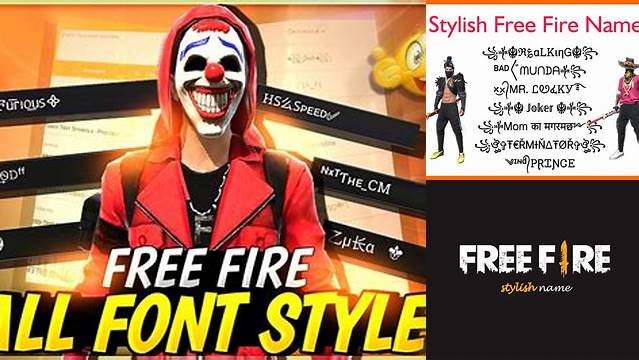
Stylish Free Fire Nickname Font Design: A Guide To Awesome Names
Hey guys, are you ready to level up your Free Fire game? One of the coolest ways to stand out is by having a unique and stylish nickname. Forget the boring default names – it's time to jazz things up! This article will dive deep into Free Fire nickname font design, exploring how to create awesome names using various fonts, symbols, and tools. Get ready to learn how to craft a nickname that'll make your opponents say, "Whoa, that's a cool name!"
The Power of a Killer Free Fire Nickname
Why bother with a fancy nickname, you ask? Well, your Free Fire nickname is more than just a label; it's your identity in the game. It's what other players see, remember, and sometimes even fear! A well-designed nickname can do wonders. First off, it makes you memorable. Think about it – would you remember "Player123" or "ᗪƦΛGØŇ_SŁΛƳƇƦ"? Probably the latter, right? A unique name helps you stand out from the crowd, making it easier for people to recognize you and maybe even team up with you again. Then, there's the intimidation factor. A cool, intimidating name can psyche out your opponents before the match even begins. It's a psychological edge that can give you a small advantage. Plus, it just looks cool! A well-designed nickname shows that you're serious about the game and that you pay attention to detail. It's a form of self-expression. It lets you show off your personality, your interests, and your creativity. It's all about making your mark and leaving a lasting impression in the Free Fire universe. So, are you still wondering if it's worth the effort? Trust me, it is. Let's get you started on the path to a legendary nickname!
Choosing the Right Font
One of the first things you'll want to think about is the font. The right font can make or break your nickname. It's like picking out the perfect outfit for your character – it has to be stylish and functional. There are tons of font styles out there, from sleek and modern to bold and gothic. The key is to find one that fits your personality and the image you want to portray. Consider the readability of the font. Some fonts look amazing but are hard to read in the game. You want a font that is both stylish and easily understood by others, especially during the heat of battle. Imagine trying to spot your teammate's name during a fast-paced match, and you can't even read it! It's a recipe for disaster. There are several websites and apps that offer a wide variety of fonts specifically designed for gaming nicknames. These tools allow you to type in your desired name and then convert it into different font styles instantly. Some sites even offer advanced customization options, letting you add symbols, special characters, and other embellishments to your name. Experiment with different fonts to see what looks best and feels right. Don't be afraid to try out several options before you find the perfect one. Think about the overall vibe you want to create. Are you going for a tough, edgy look? A playful, fun style? Or something else entirely? The font you choose should align with your desired image. Remember, your nickname is a reflection of you, so let your personality shine through. So, start exploring those fonts and finding the perfect match for your Free Fire persona. You're one step closer to having the ultimate nickname!
Using Symbols and Special Characters
Alright, let's talk about adding some symbols and special characters to your nickname. This is where things get really interesting, guys! Symbols and special characters are the secret sauce that takes your nickname from "meh" to "WOW!" They add flair, personality, and that extra touch of uniqueness that makes your name stand out. There's a vast library of symbols out there, from hearts and stars to arrows, brackets, and everything in between. The trick is to use them creatively to enhance your name without making it unreadable or cluttered. You can use symbols to separate words, add emphasis, or create cool visual effects. For example, you might use arrows or brackets to highlight certain parts of your name, or you could use a symbol before and after your name to create a unique frame. Many of the font generators available online also offer a selection of symbols and special characters that you can add to your nickname. These tools make it super easy to experiment with different combinations and find the perfect balance of style and readability. It's also a good idea to check which symbols are supported by Free Fire. Some symbols might not display correctly in the game, so you'll want to make sure the ones you choose are compatible. You can often find lists of supported symbols online or by testing them out yourself in the game. Here's a pro tip: don't go overboard! Too many symbols can make your name look messy and difficult to read. The goal is to enhance your name, not to overwhelm it. Use symbols sparingly and strategically to create a polished and eye-catching look. Consider the overall design of your name and how the symbols complement the font and the rest of your nickname. Think about what the symbols represent and how they add to the meaning or personality of your name. With a little creativity and experimentation, you can use symbols and special characters to create a truly unforgettable nickname that will set you apart from the competition. Get ready to make your mark with a nickname that screams style!
Font Generators and Tools
Okay, so you know you want a cool nickname, but where do you start? That's where font generators and tools come in! These are your best friends when it comes to designing unique and stylish names for Free Fire. Font generators are websites or apps that allow you to type in your desired name and instantly convert it into various font styles. They're incredibly easy to use and offer a wide range of options, from basic fonts to more elaborate and decorative styles. All you need to do is enter your name, and the generator will display it in different fonts, along with symbols and special characters. This makes it easy to preview your name in different styles and see what works best. There are tons of different font generators available online, and they all offer slightly different features. Some generators allow you to customize your fonts even further, by adding symbols, changing the size, and adjusting other elements. You can often find these generators with a quick search online. Just type in "Free Fire nickname generator" or similar keywords, and you'll find a ton of options to choose from. Experiment with different generators to see which ones you like best. Not all generators are created equal, and some might offer better fonts or customization options than others. Once you've found a generator that you like, the next step is to start experimenting with different fonts and styles. Try typing in your name and seeing how it looks in different fonts. You can also try combining different fonts and symbols to create a unique look. Keep in mind that not all fonts are supported by Free Fire, so you might need to try different combinations until you find one that works. Here's a pro tip: check the preview of your nickname in the generator to make sure it looks good and is easy to read. Some fonts might look great in the generator but be difficult to read in the game. Don't be afraid to try different combinations until you find one that you love. You can also save the nicknames you like and come back to them later. That way, you can see how they fit with different characters and create a list of potential nicknames. And hey, don't forget to share your cool nickname with your friends and ask for their opinions. That way, you can see how it fits with different characters and create a list of potential nicknames. It is time to create your cool nickname with these awesome font generators and tools!
Tips for a Great Free Fire Nickname
So, you've got the tools, you know about fonts and symbols, and now you're ready to create a great Free Fire nickname? Awesome! Let's go over some tips to help you craft a name that'll make everyone take notice. First, think about what you want your nickname to say about you. Are you a serious gamer, a fun-loving player, or something in between? Your nickname should reflect your personality and playing style. This will help you choose the right fonts, symbols, and overall design. Make it unique. Avoid generic names or ones that are already widely used. Try to come up with a name that's original and memorable. This will make it easier for other players to remember you and recognize you in the game. Keep it concise. Long names can be difficult to read and might get cut off in the game. Aim for a name that is easy to read and understand, even when viewed on a small screen. Make it readable. Even if you love a fancy font, make sure your nickname is easy to read in the game. Choose fonts and symbols that are clear and distinct, so other players can quickly identify you. Avoid using names that are offensive, inappropriate, or that violate Free Fire's terms of service. You want to create a positive and respectful online experience for yourself and other players. Make sure your nickname is available. Before you finalize your nickname, check to see if it is available in Free Fire. You don't want to spend a lot of time creating a perfect name, only to find out someone else is already using it. And most importantly, have fun and be creative! This is your chance to express yourself and create a unique identity in the game. Don't be afraid to experiment and try different ideas until you find the perfect nickname for you. By following these tips, you'll be well on your way to creating a great Free Fire nickname that will turn heads and make you stand out from the crowd. Go forth and create an awesome nickname!
Avoiding Common Mistakes
Creating a Free Fire nickname is a blast, but there are also some common mistakes that you want to avoid. Trust me, you don't want to end up regretting your choice later on. One of the biggest mistakes is choosing a name that's too long or hard to read. Remember, players will see your name in the heat of battle, and they need to be able to identify you quickly. If your name is too complex or uses too many symbols, it might be difficult for others to read, and it could even cause confusion. Another mistake is choosing a name that's generic or unoriginal. While it's tempting to go with a simple name, like "ProGamer" or "SniperKing," these names often get lost in the crowd. You want a name that's unique and memorable, something that will make other players notice you. Another common mistake is choosing a name that's offensive or inappropriate. Free Fire, like any online game, has rules and guidelines about what's acceptable and what's not. Avoid using names that are racist, sexist, or that promote violence or hatred. You don't want to get banned or have your account penalized because of your nickname. Also, watch out for names that are too complicated or difficult to type. If your name uses a lot of special characters or unusual fonts, it might be difficult for others to type your name correctly. This can make it hard for people to search for you or add you as a friend. Finally, don't be afraid to change your nickname if you're not happy with it. You're not stuck with your first choice forever. Free Fire allows you to change your name, so feel free to experiment and try out different options until you find the perfect one. By avoiding these common mistakes, you'll be well on your way to creating a great Free Fire nickname that you'll be proud of. Remember, it's all about expressing yourself, having fun, and standing out from the crowd. Go out there, be creative, and create a nickname that makes you shine in the game!
Changing Your Free Fire Nickname
Alright, so you've created your awesome nickname, but how do you actually change your Free Fire nickname? The process is pretty straightforward, but there are a few things you need to know. First, you'll need a nickname change card. You can obtain these cards in a variety of ways, such as through in-game events, by purchasing them with diamonds, or sometimes as a reward for completing certain tasks. These cards are essential because you can't change your name without one. Once you have a nickname change card, go to your profile in the game. You can usually access your profile by tapping on your player icon in the main menu. In your profile, you'll find an option to change your nickname. Tap on the edit icon next to your current name to begin the process. The game will then prompt you to enter your desired new nickname. This is where you can enter the stylish name you've been working on. Be sure to double-check your new name before you confirm it, as you'll be using the nickname change card. After you've entered your new nickname, the game will ask you to confirm the change. Carefully review your new name one last time, and then tap the confirm button. Your nickname should now be updated in the game! If you're having trouble changing your nickname, here are a few things to keep in mind. Make sure you have a nickname change card. Ensure that the new nickname complies with Free Fire's terms of service. Double-check your spelling to avoid any errors. If you're still having issues, it's always a good idea to reach out to Free Fire's customer support for assistance. They can provide further guidance and help resolve any technical issues. Keep in mind that it might take a few moments for your new nickname to update across all game features, such as in your friends list or during matches. But don't worry, your new stylish name will eventually appear everywhere! Congratulations, you've successfully changed your Free Fire nickname! With your awesome and unique nickname, you're now ready to show off your style and dominate the battlefield!
So, there you have it, guys! You've learned the ins and outs of Free Fire nickname font design, from choosing the right fonts and using symbols to finding the perfect font generators and knowing how to change your name. Now it's time to unleash your creativity and create a nickname that truly represents you. Remember, your nickname is your identity in the game, so make it count! Get creative, experiment with different fonts and symbols, and most importantly, have fun! With your new and stylish nickname, you'll be ready to turn heads and make your mark on the Free Fire world. Happy gaming, and may your nickname be legendary!